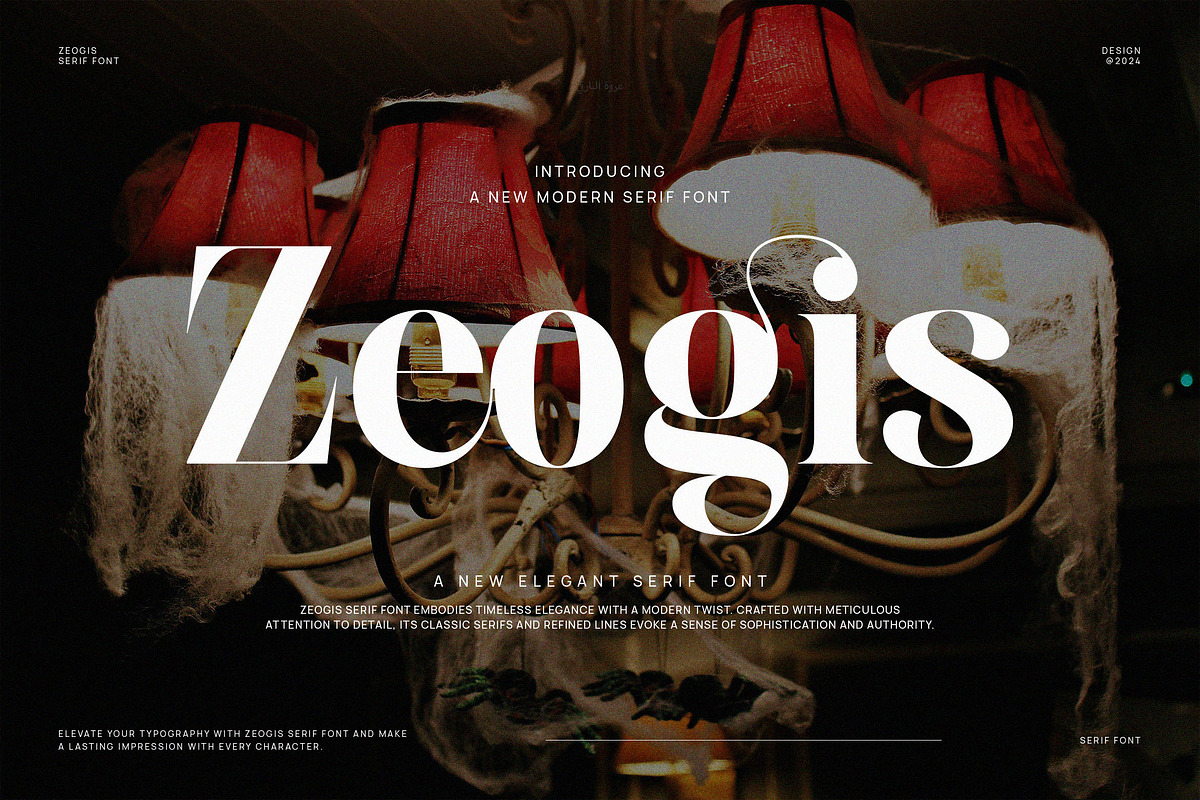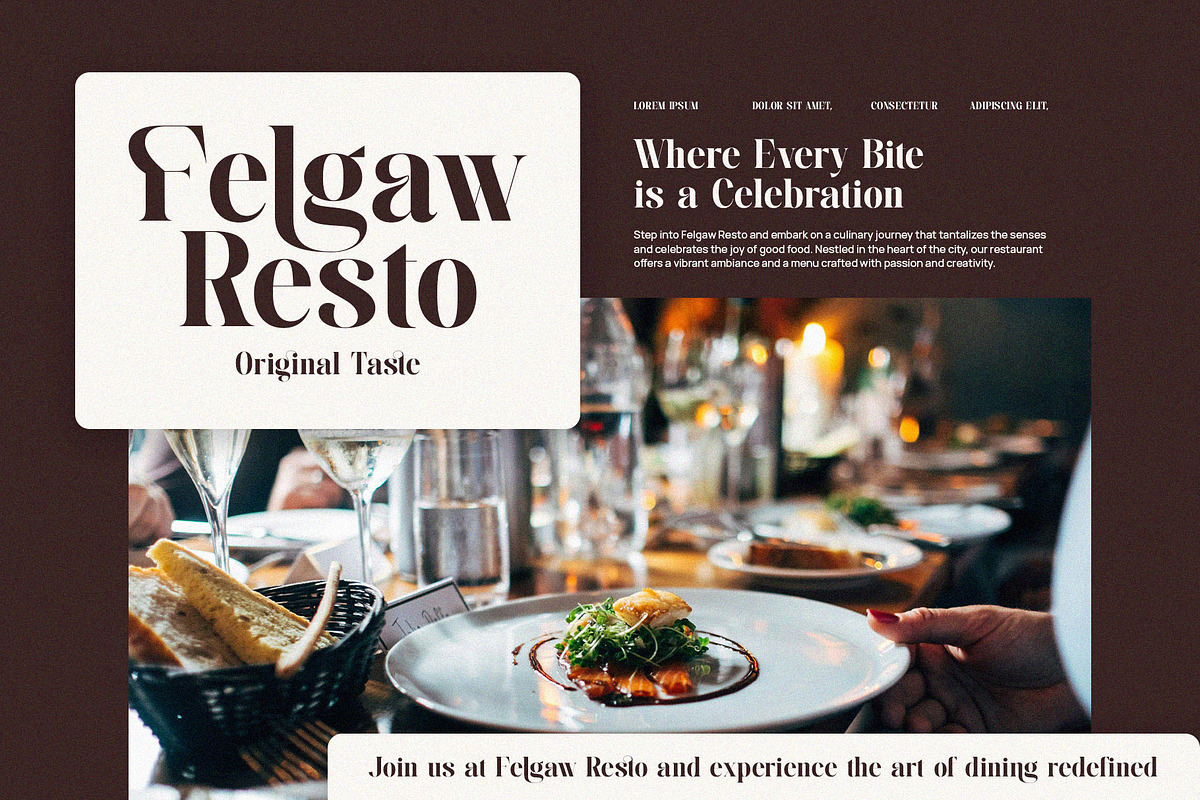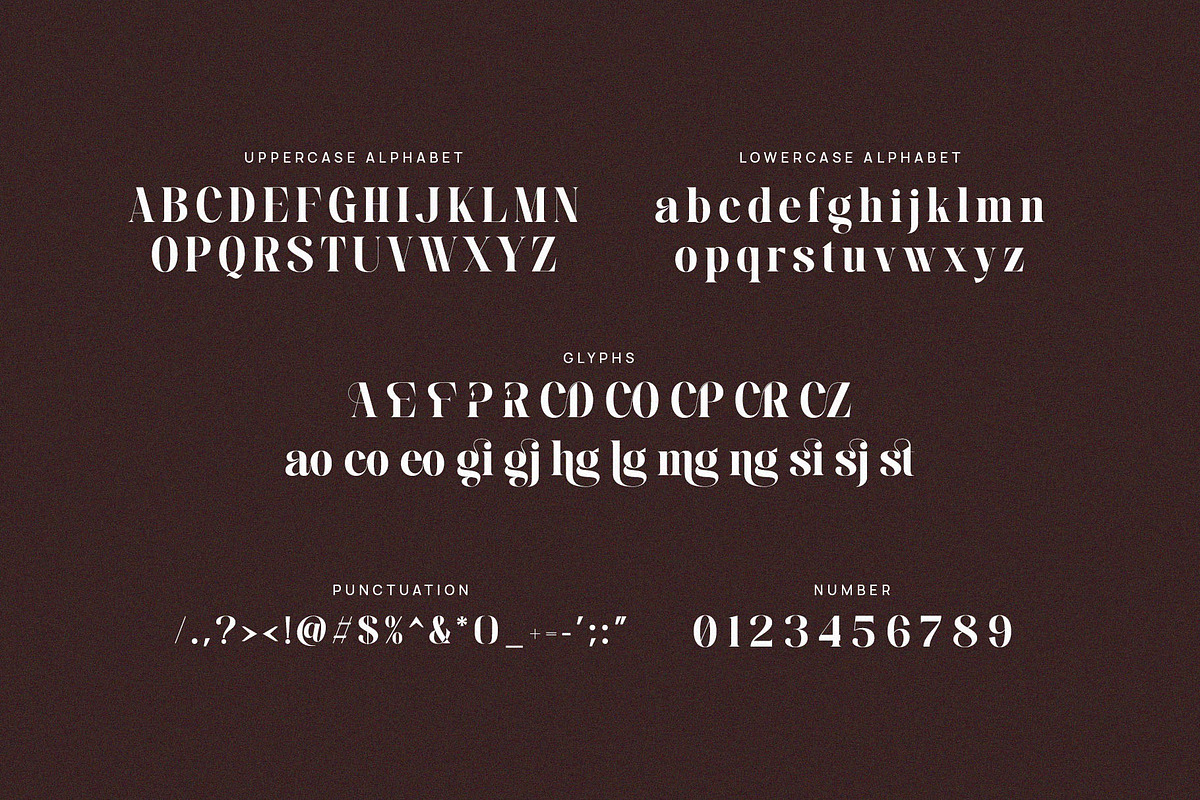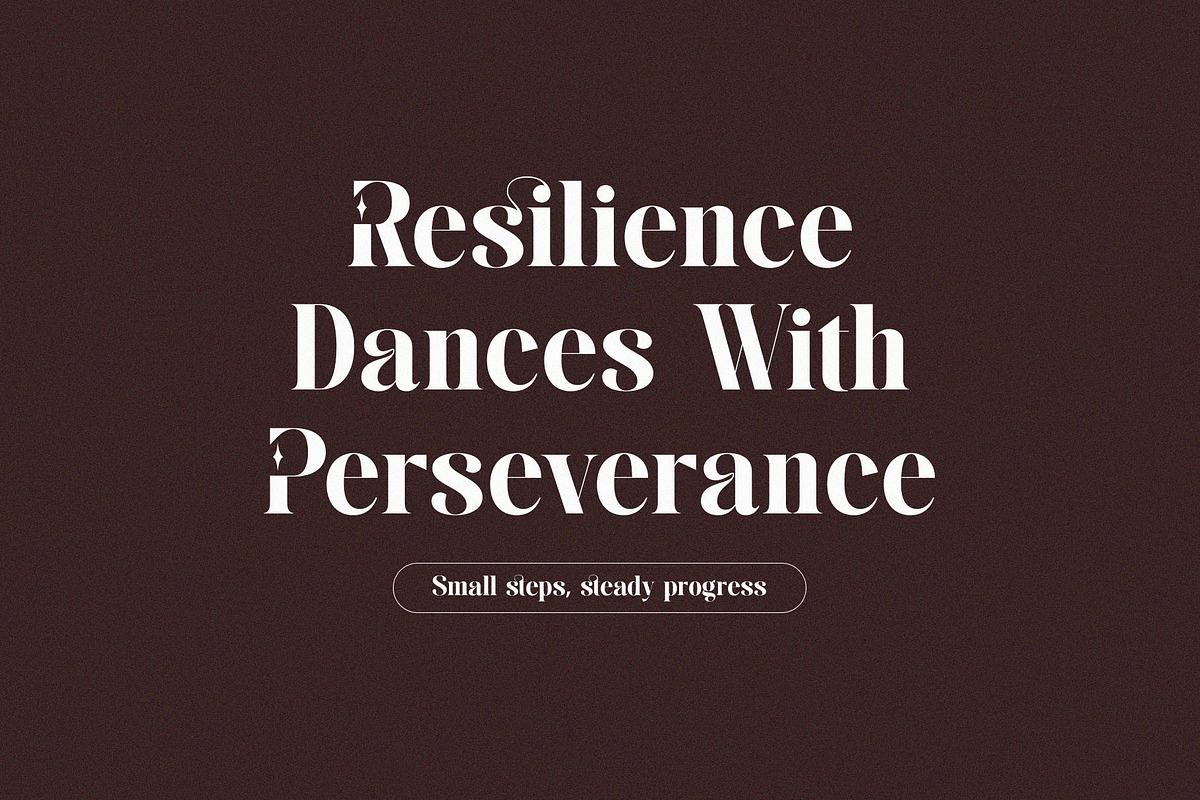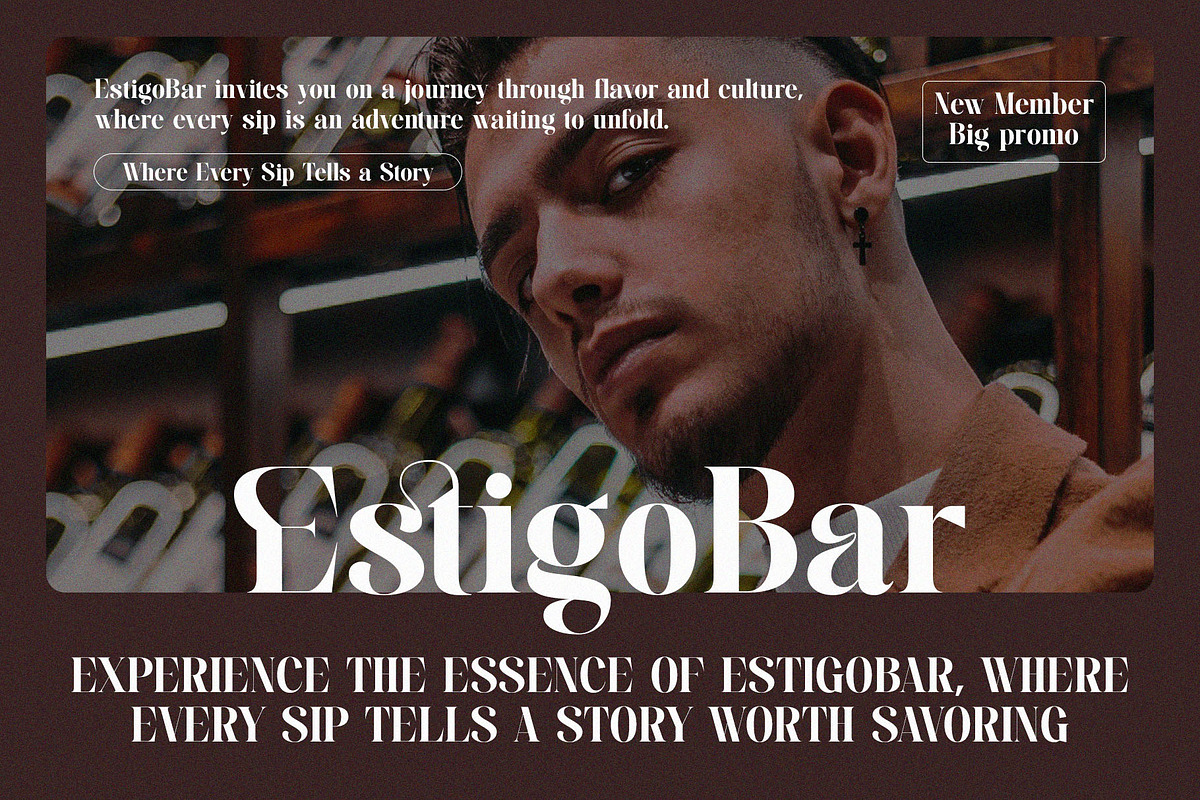
Zeogis - Elegant Serif Font
Introducing our new Zeogis, modern serif font with elegant style this is perfect for branding, logos, invitation, magazines, product packaging and more.